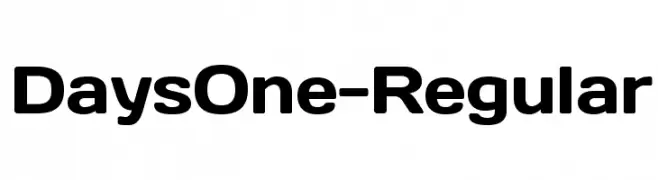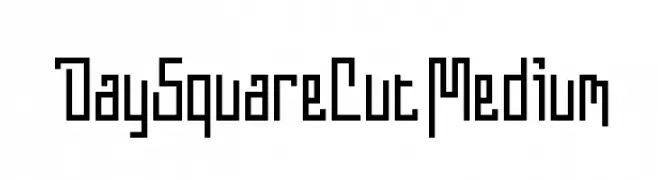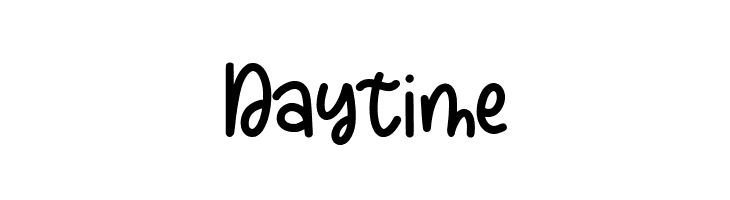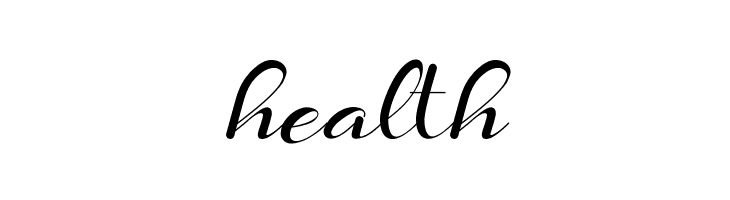
A bold, rounded font with a playful and friendly style.
A flowing, elegant script font with intricate loops and flourishes.
An elegant script font with flowing, interconnected letters and high contrast strokes.
A modern, bold, and rounded font with a clean geometric structure.
A geometric, angular font with a blocky, digital appearance.
A bold, strong font with thick strokes and a robust appearance.
A playful, handwritten font with rounded edges and a friendly appearance.
A playful, energetic handwritten font with fluid, connected letterforms.
A bold, striped font with a modern and dynamic design.
An elegant, flowing script font with intricate, decorative letterforms.